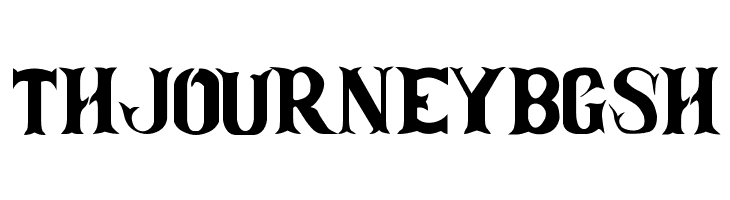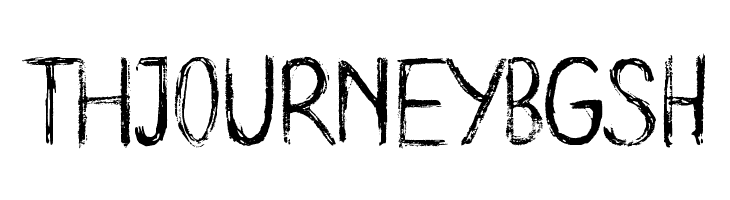
Clambake October Six Bold Font
A bold, rounded font with a playful and friendly style.
Clambake October Six Font
A playful, handwritten-style font with rounded edges and a casual vibe.
Clambake October Six Light Font
A playful, casual font with rounded edges and a slightly condensed form.
Clam-Dip Font
A bold, Gothic-inspired font with sharp serifs and intricate details.
Clambake October Six Bold Italic Font
A bold, italicized font with a playful and dynamic style.
Long Clam Font
A rugged, hand-drawn font with a distressed, sketch-like texture.
ClamShack-Regular Font
A modern, geometric font with bold uppercase letters and numerals.
Long Clam Demo Version Font
A bold, hand-drawn font with a distressed, textured appearance.
Clambake October Six Italic Font
A playful, handwritten-style italic font with smooth curves and consistent strokes.
Clambake October Six Light Italic Font
A light, italic, handwritten-style font with elegant curves.
Clam Shack Regular Font
A modern, geometric font with bold uppercase letters and numerals.
Summer_Clam Font
A bold, expressive script font with a hand-drawn, dynamic style.
Long Clam Full Version Font
A bold, hand-drawn font with a rough, textured appearance and a dynamic, artistic style.